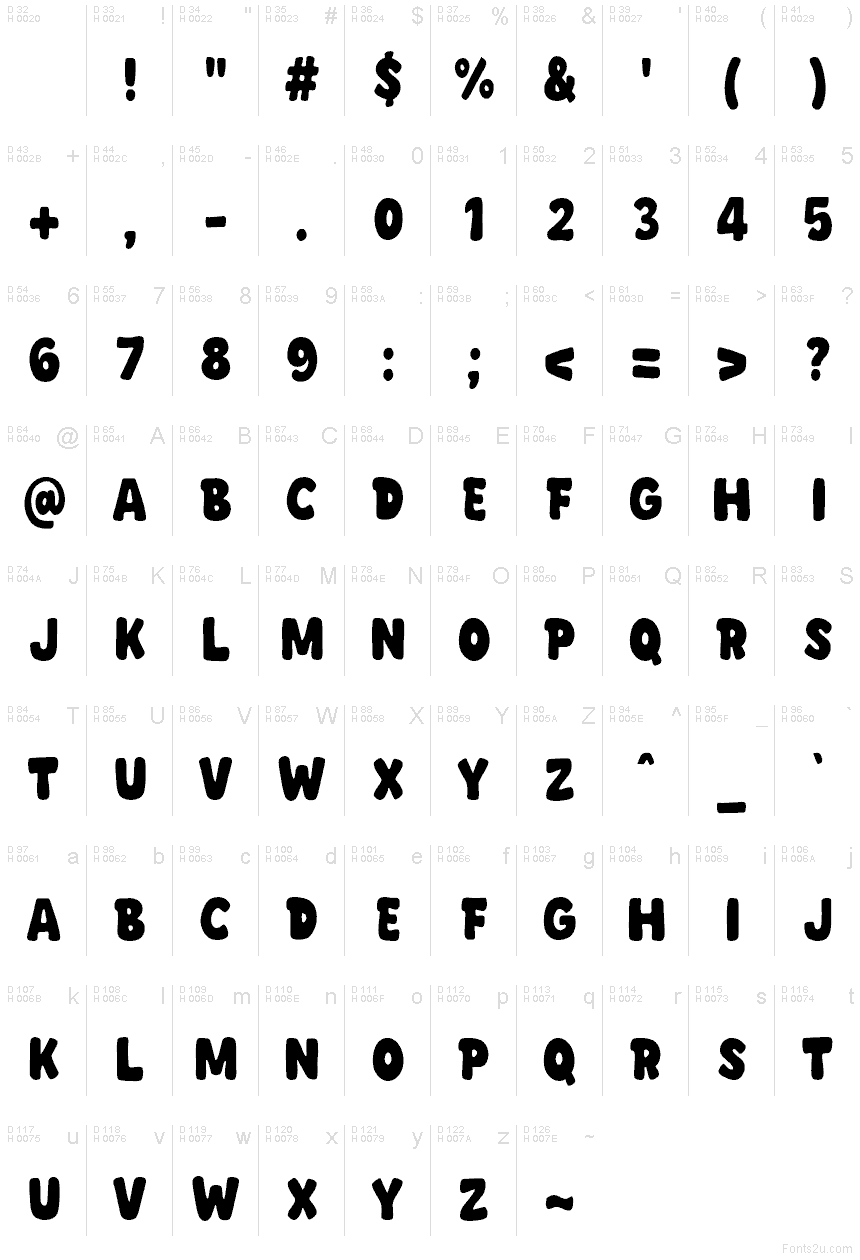
Brand Street
Brand Street font by Origin Type is a bold display cartoon font with a playful personality. Rounded edges and soft contours give it an unmistakable retro vibe reminiscent of 1960s-70s design. It features every letter in uppercase, all neatly aligned as if standing in attention to an invisible string line.